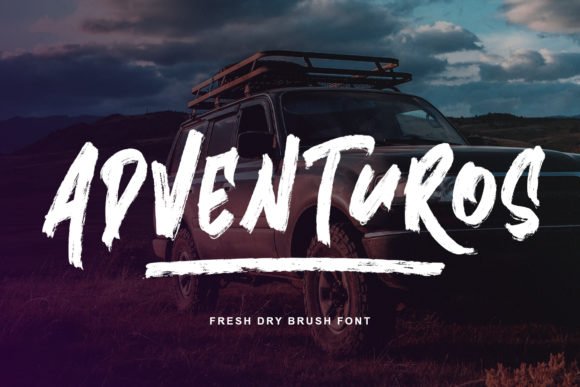
The Perfect Brush Stroke for Your Next Creative Project
There’s something magical about that first spark of inspiration – the moment when an idea clicks and you can’t wait to bring it to life. Maybe it’s the thrill of a new design challenge, or the excitement of experimenting with a fresh style. Whatever it is, we’ve all been there. And for designers, that spark can often lead to a world of creative possibilities.
One of the most effective tools for capturing that urban vibe is the Adventuros Font, a stunning handwritten font with a brush style that’s perfect for branding, packaging, logos, and more. With its unique, hand-crafted feel, Adventuros Font is a valuable addition to any designer’s toolkit, offering endless opportunities for creative expression and visual storytelling.
Adventuros Font Key Features
- Unique Characteristics: Adventuros Font features a unique blend of modern and vintage elements, with intricate details and ornaments that evoke a sense of nostalgia and adventure.
- Font Family: Adventuros Font is part of a larger font family, offering a range of weights and styles, including light, regular, bold, and italic, to suit various design needs and preferences.
Adventuros Font Review
Adventuros Font is a unique, hand-drawn font that’s sure to capture attention. It has a whimsical feel to it, making it perfect for creative projects, travel brochures, or any design that needs a bit of adventure.
- ✨ Highly customizable, allowing you to adjust the font’s style to suit your needs.
- ✨ Unique, hand-drawn style that adds a touch of personality to your designs.
- ✨ Wide range of languages supported, making it a versatile font for international projects.
- ⚠️ Some characters may not be as smooth or refined as others, which can be distracting in certain contexts.
- ⚠️ Limited availability in certain font formats, which may restrict its use in specific design applications.
- ⚠️ Can be overwhelming if used extensively, so be sure to balance it with other fonts in your design.
Overall, I’d say Adventuros Font is a great choice for designers looking for a unique, creative font. While it may have its limitations, the benefits far outweigh the drawbacks. With some careful consideration and balance, Adventuros Font can add a touch of excitement to any design project.
Use Adventuros Font for creating adventurous and bold text effects.
It’s ideal for use in headings, titles, and other text elements where you want to grab attention.
Common use cases include creating posters, flyers, and other promotional materials.
Alternatives to Adventuros Font
Oswald is a sans-serif font that is ideal for creating bold and modern designs. It is a great alternative to Adventuros Font when you need a more industrial and edgy feel. Unlike Adventuros Font, Oswald has a more geometric and technical look, making it perfect for tech-related designs and websites.
Montserrat is a sans-serif font that is inspired by the urban landscape of Buenos Aires. It is a great alternative to Adventuros Font when you need a font that is modern, clean, and sophisticated. Unlike Adventuros Font, Montserrat has a more minimalist and elegant look, making it perfect for luxury brands and high-end designs.
What is the recommended font size for the Adventuros Font?
The recommended font size for the Adventuros Font varies depending on the application and the intended use. For body text, a font size of 12-14 points is recommended. For headings, a font size of 18-24 points is recommended. However, you can adjust the font size to suit your specific needs and design goals.